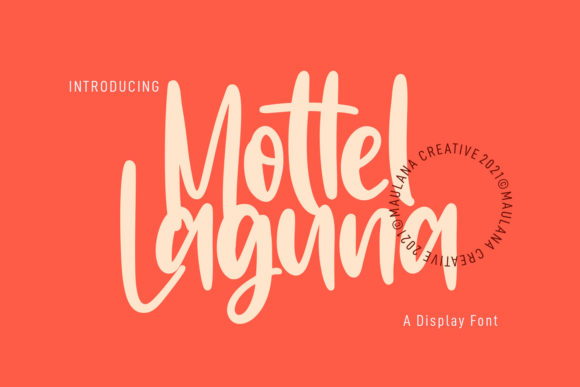
Behold the captivating allure of Mottel Laguna, a script font that dances across your designs with an irresistible charm. Embrace the freedom of handwritten artistry as you explore the depths of your creativity.
With its playful personality and laid-back vibe, Mottel Laguna will infuse your creations with a touch of whimsy and delight. Say goodbye to ordinary fonts and unleash your imagination on a journey of artistic exploration.
Step into a world where words come alive, where your designs speak volumes, and where every letter tells a captivating story. Paint your digital canvas with the vibrant hues of Mottel Laguna, and let your ideas soar to new heights.
More than just a font, Mottel Laguna is a gateway to a realm of creativity, where boundaries dissolve, and inspiration flows freely. Join the ranks of creative visionaries who have embraced Mottel Laguna to craft masterpieces that resonate with audiences worldwide.
Elevate your designs to new realms of artistry. Whether you're crafting logos, branding materials, posters, or captivating social media graphics, Mottel Laguna will add an unforgettable touch of personality and flair.
Explore the limitless potential of Mottel Laguna today, and experience the joy of creating designs that captivate, inspire, and leave a lasting impression. Let your imagination roam free, and allow Mottel Laguna to guide you on an artistic adventure like no other.